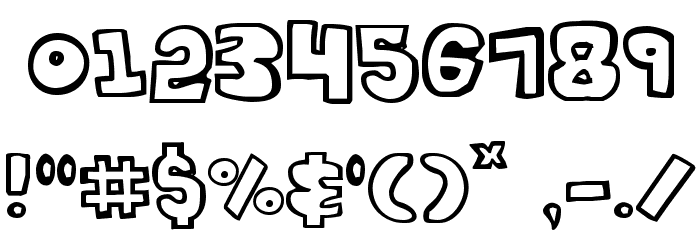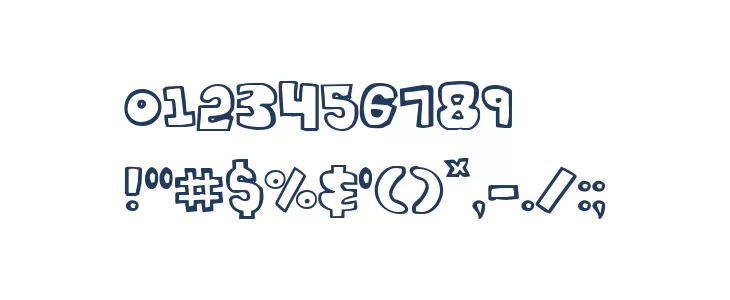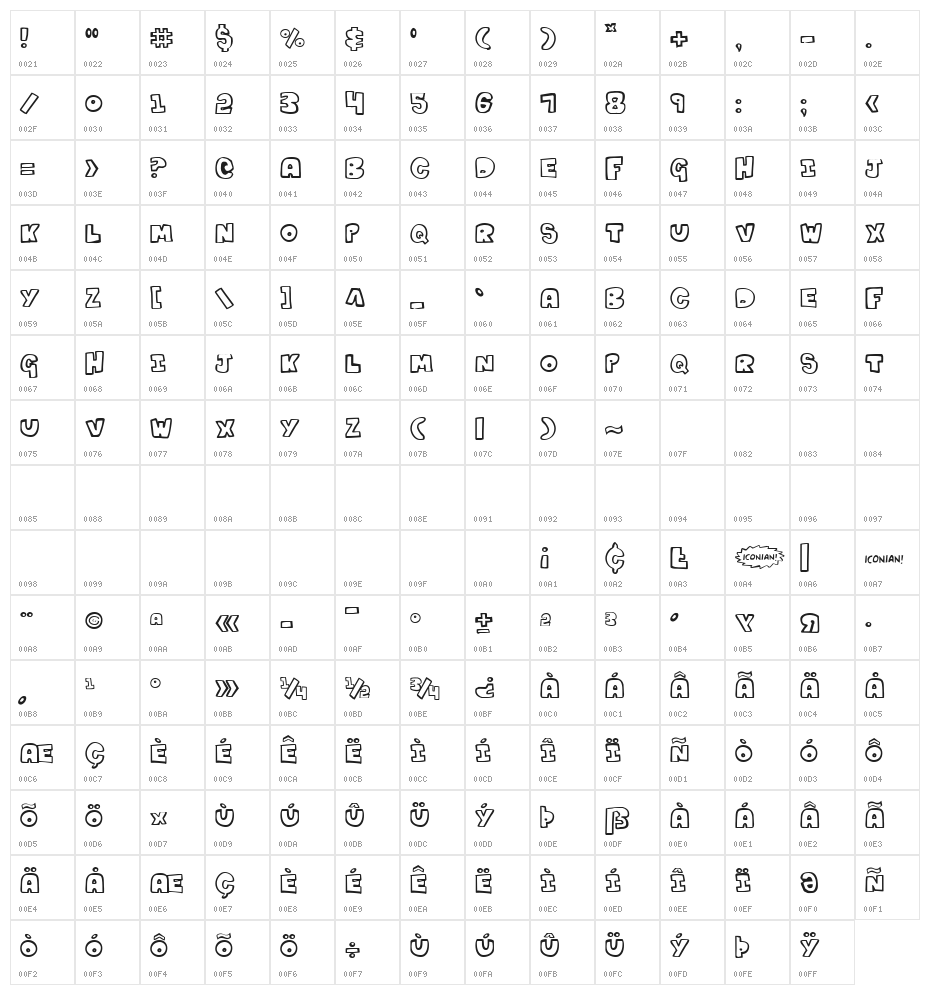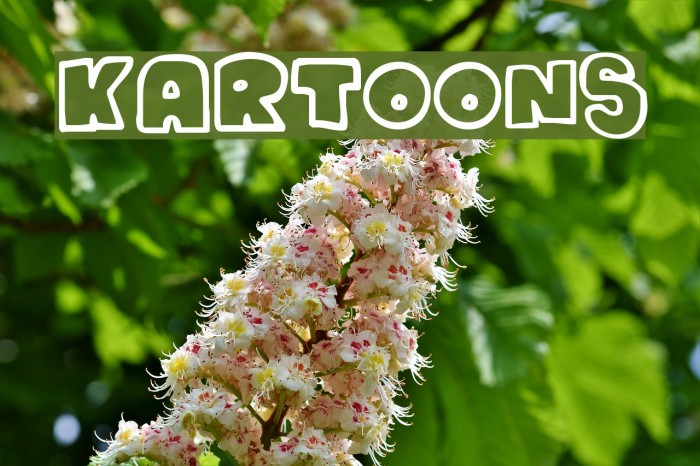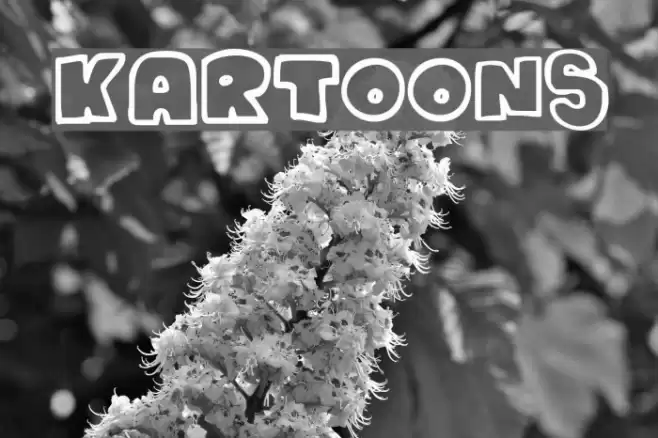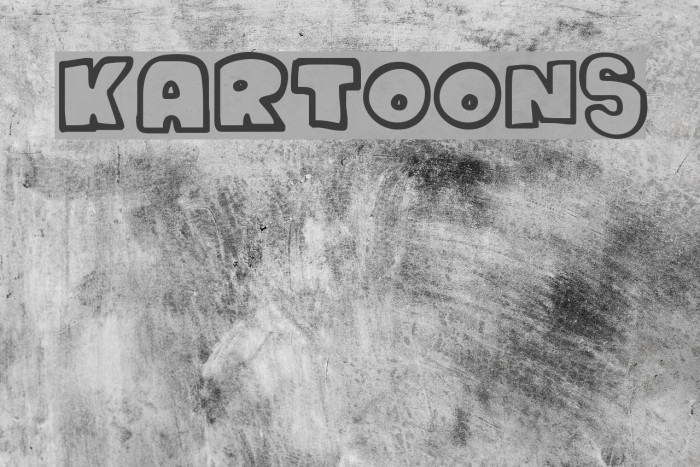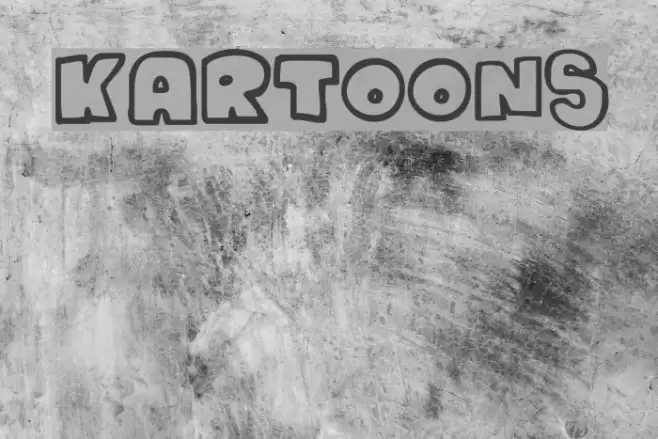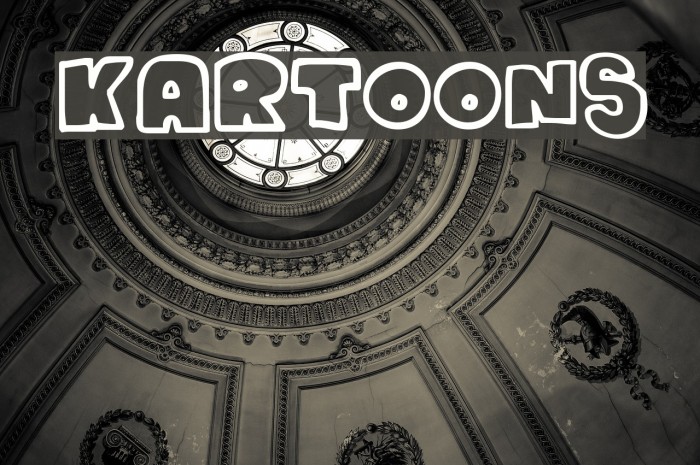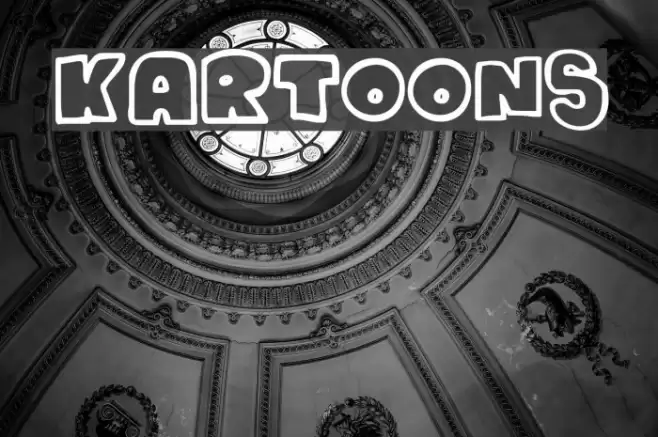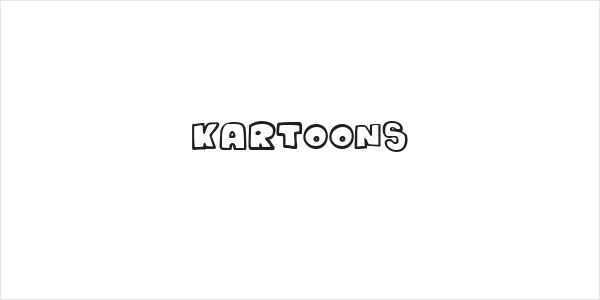
Kartoons Font
Kartoons Description
This playful and bold font features thick, rounded letters with a cartoonish style. Each character is outlined, giving it a three-dimensional appearance that adds depth and fun. The uppercase and lowercase letters maintain a consistent style, with exaggerated curves and a whimsical flair. Numbers and special characters follow the same design principles, making them perfect for creative projects. The font's informal and lively nature makes it ideal for children's materials, comic books, and playful branding. Its unique style captures attention and adds a sense of humor and lightheartedness to any text.
| Overall Style | Playful, Cartoonish |
| Proposed Projects | Ideal for children's books, comic strips, playful branding, and party invitations. |